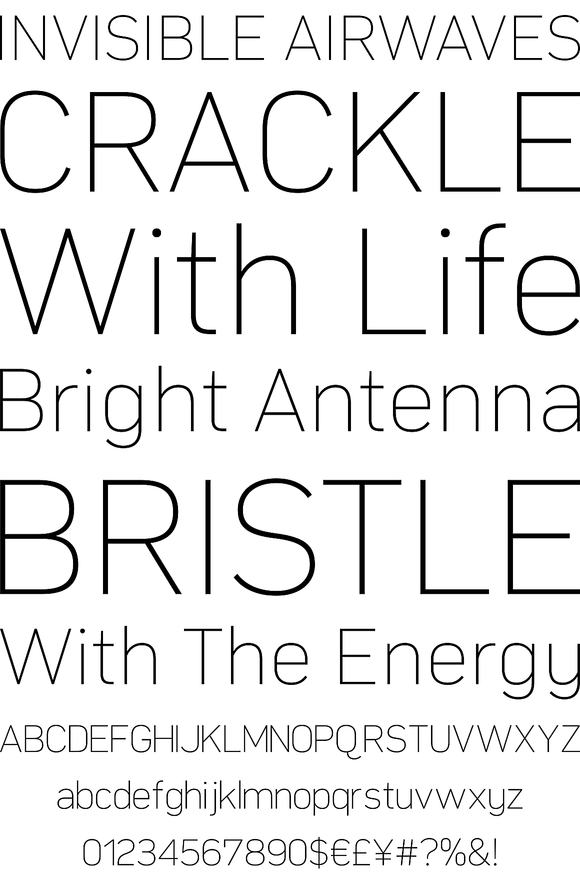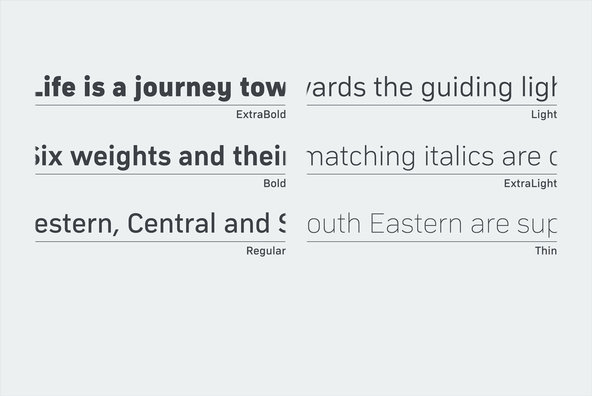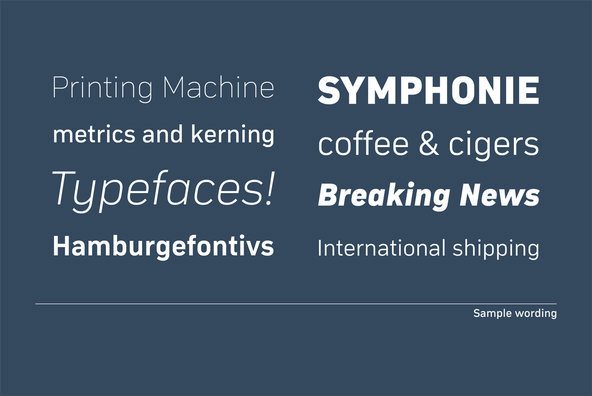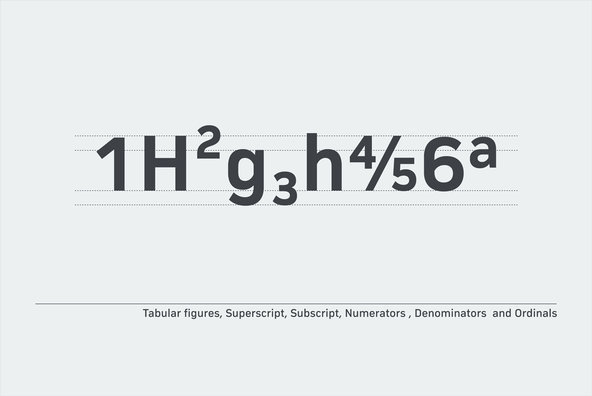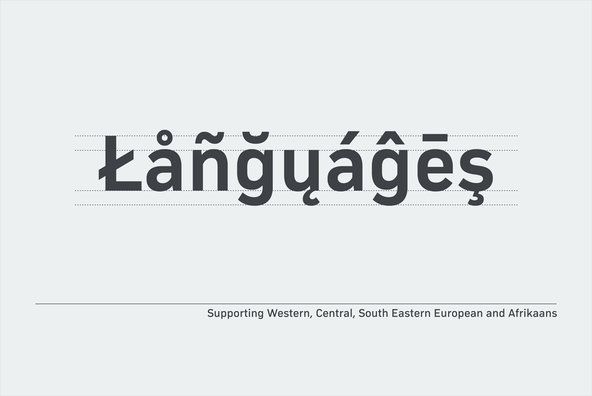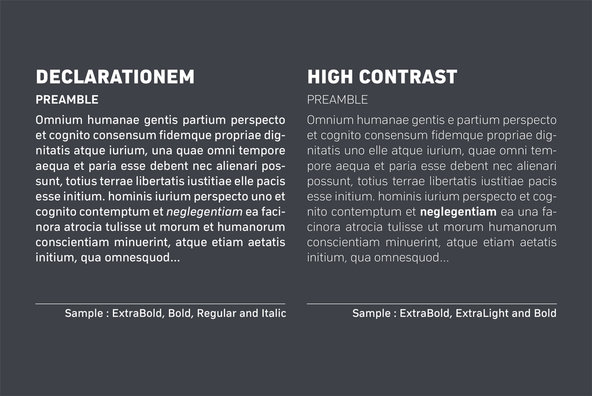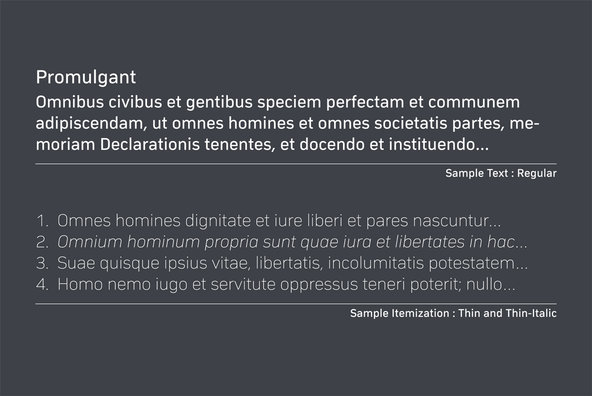
Compasse Font
Compasse is a semi-condensed sans-serif family designed by Ryoichi Tsunekawa and the whole family consists of 12 style: six weights from Thin to ExtraBold and their matching Italics. The range of styles provides flexibility for title, headline and body text. And the large x-heights increases legibility and readability.
The basic skeleton of their letterform was not designed over-modularly but moderately semi-modularly (adjusted by designer's experience). Therefore the typical artificiality and unnaturalness which come from module-design does not exist in this family. The sophisticated letterform and its universal, neutral, and standard design make it possible to be used across a wide range of applications in all medias, all purposes.
Compasse supports almost all european languages: Western, Central, South Eastern Europeans and afrikaans. And superior figures, inferior figures, denominators, numerators and fraction can be accessed by using OpenType features.
In the early 2000's, Ryoichi Tsunekawa was fascinated by the relations between modernist design and Bauhaus style while studying architecture at Nagoya University. He eventually changed his focus to type-design, establishing an extensive font collection that is now available on YouWorkForThem.The desig...